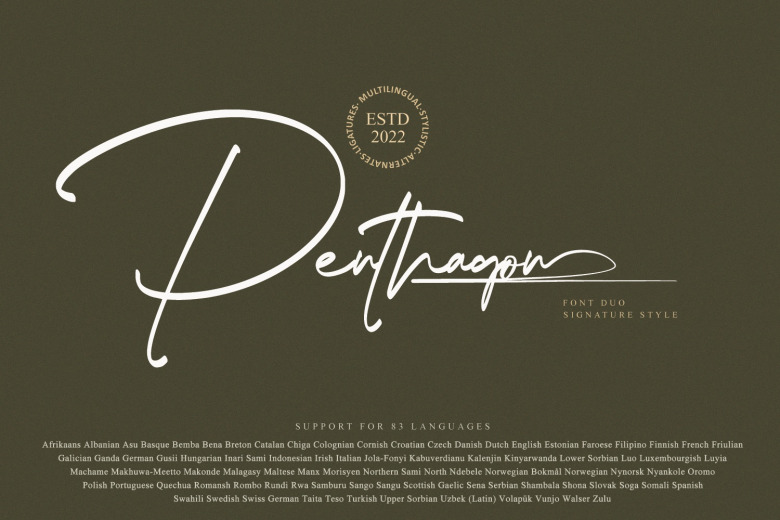
Penthagon Font
Penthagon Font is delicate and thin lettered signature script font that exudes elegance and class. It would be a perfect choice to design posters, affiches, logos, t-shirt and magazine prints, eye-pleasing typographic designs and more. This font is PUA encoded which means you can access all of the glyphs and swashes with ease!
Penthagon Signature Handwritten Font